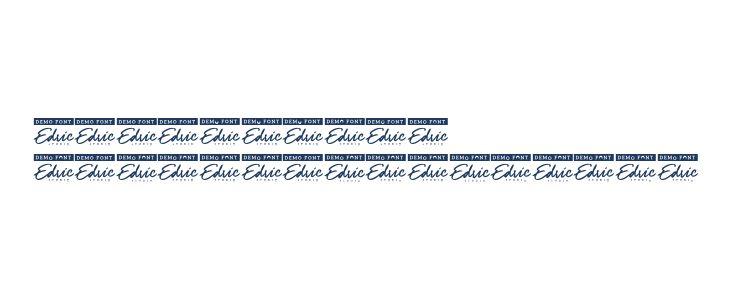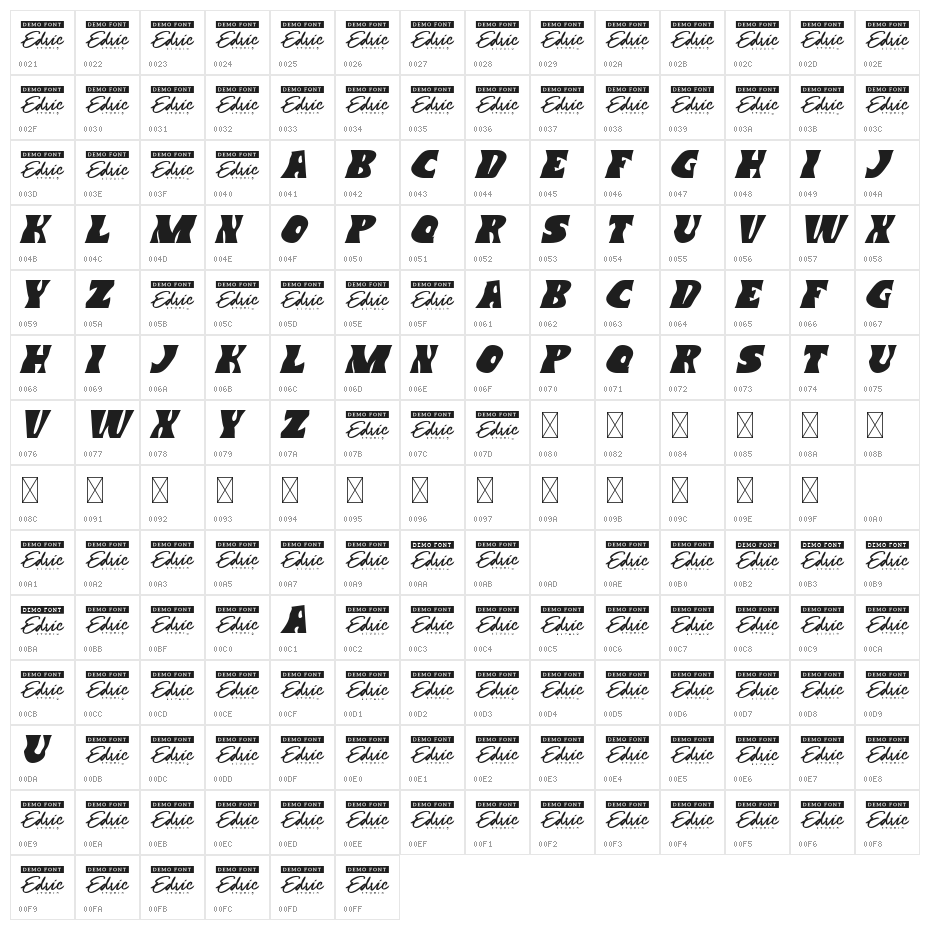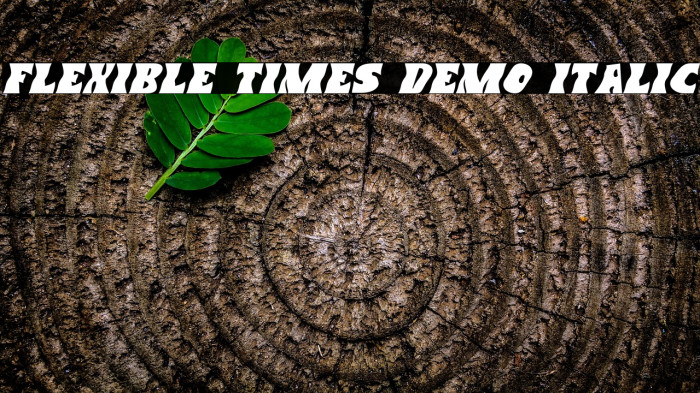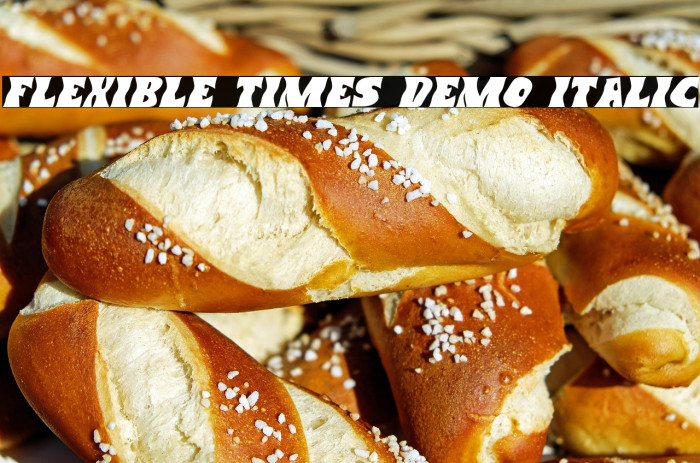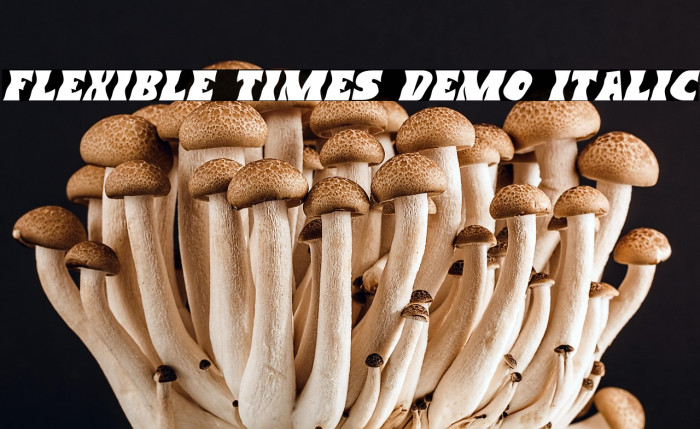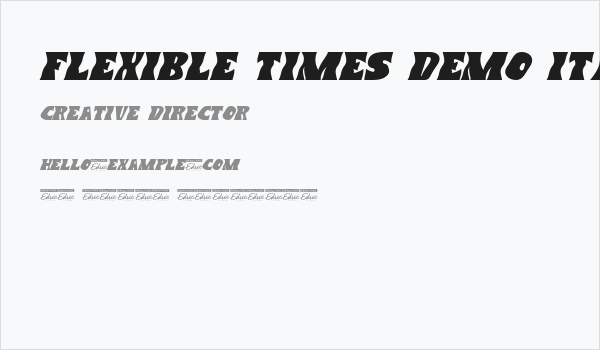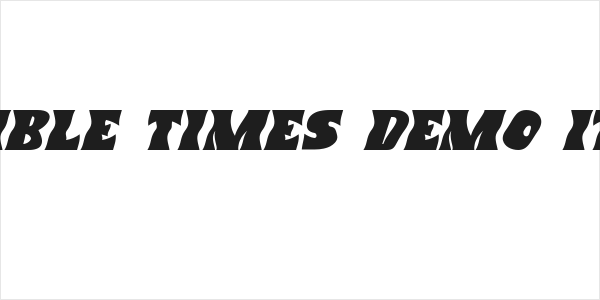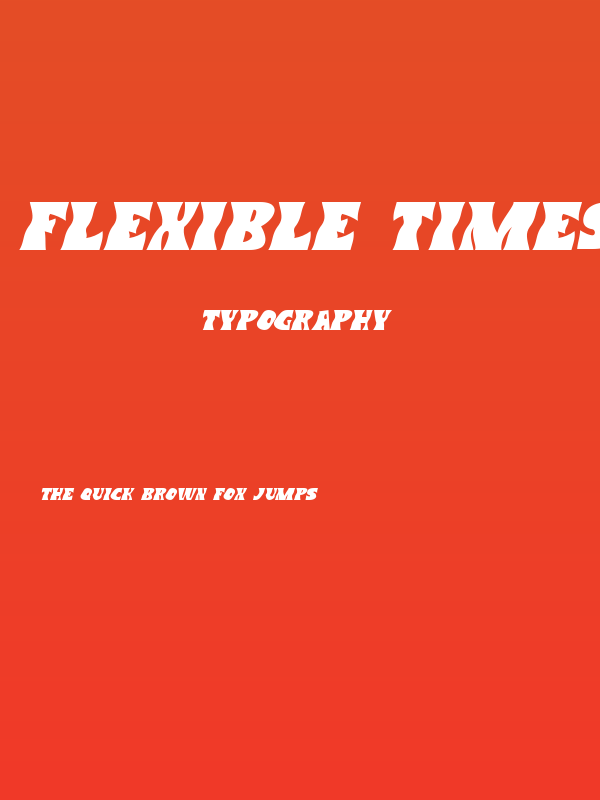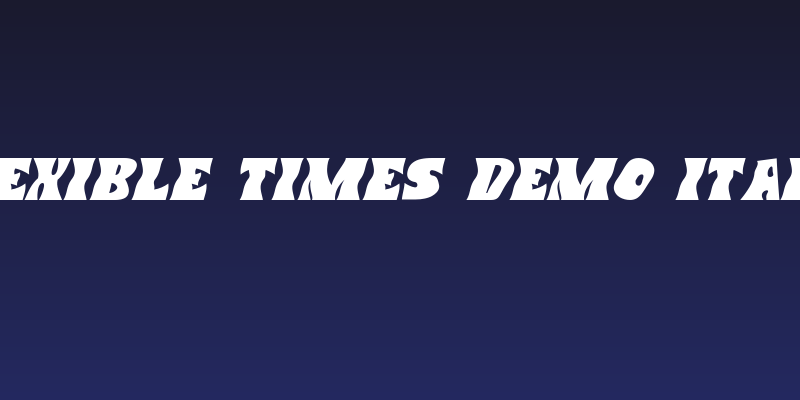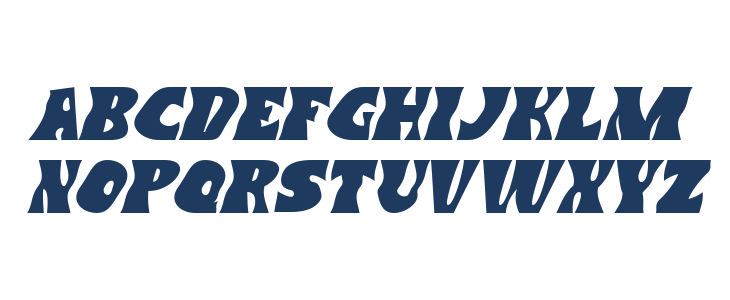
Flexible Times Demo Italic Font
Flexible Times Demo Italic Description
This font exhibits a bold and dynamic style with a strong italic slant, giving it a sense of motion and energy. The characters are thick and robust, with sharp angles and a slightly condensed form that enhances its impactful appearance. The uppercase letters are particularly striking, with a unique flair that makes them stand out. The font's design is reminiscent of vintage and retro styles, yet it maintains a modern edge that makes it versatile for contemporary use. Its boldness and distinctive character make it suitable for attention-grabbing headlines and logos.
| Overall Style | Vintage, Modern |
| Proposed Projects | Ideal for use in branding, poster design, and any project requiring a strong, eye-catching typeface. |